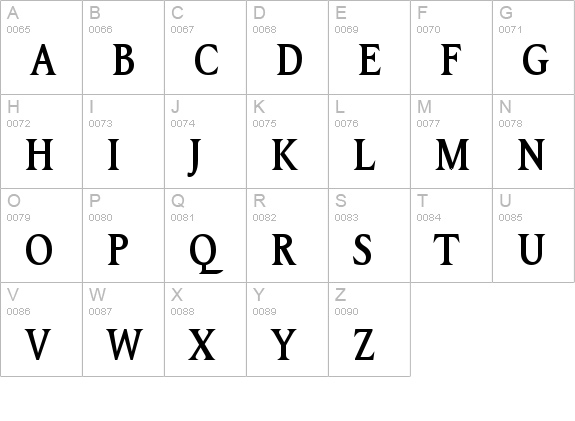
Exquisite is a free for personal use font in the General > Serif category, designed by Darrell Flood. It has been downloaded 473 times and is available for Windows, Mac and Linux.
Exquisite font is a stunningly elegant typeface that exudes sophistication and grace. Its intricate details and delicate curves make it perfect for adding a touch of luxury to any design project. The Exquisite font is designed with precision and care to ensure a truly exquisite result every time it is used.